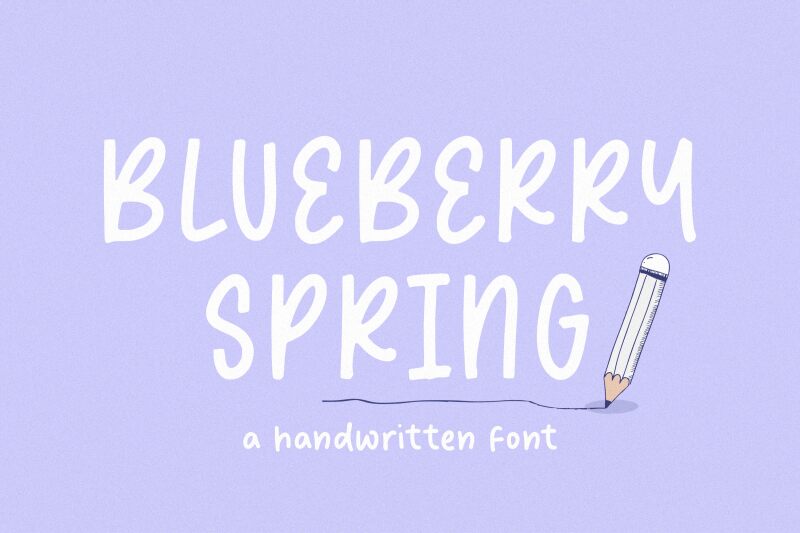
blueberry spring
Blueberry Spring font by Balpirick Studio is a cartoon-style, condensed display font featuring classic and whimsical elements. Its casual, hand-drawn appearance delivers an approachable tone that’s suitable for creative projects looking to embody this modern display free font.
This font can be used in branding, digital media design, social media posts, logos, labels or packaging designs among other creative project ideas.